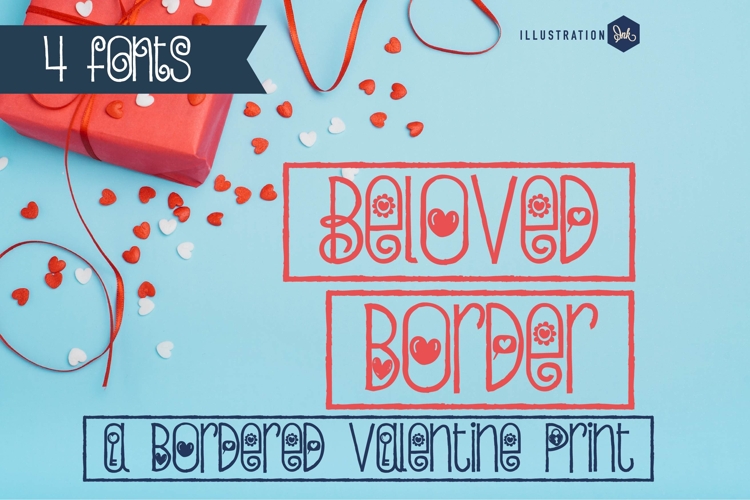
PN Beloved Border Font Family
This hand-crafted font is a naturally bordered font with texture and Valentine imagery. Type the brackets to end each rectangle with side borders. 4 versions included.